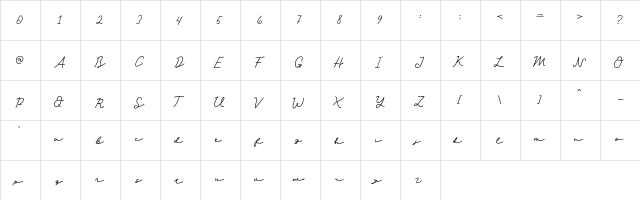
Cotana Regular
Design Context for Cotana Typeface
Cotana is a composed and adaptable typeface that performs quietly and consistently across a wide range of design contexts.